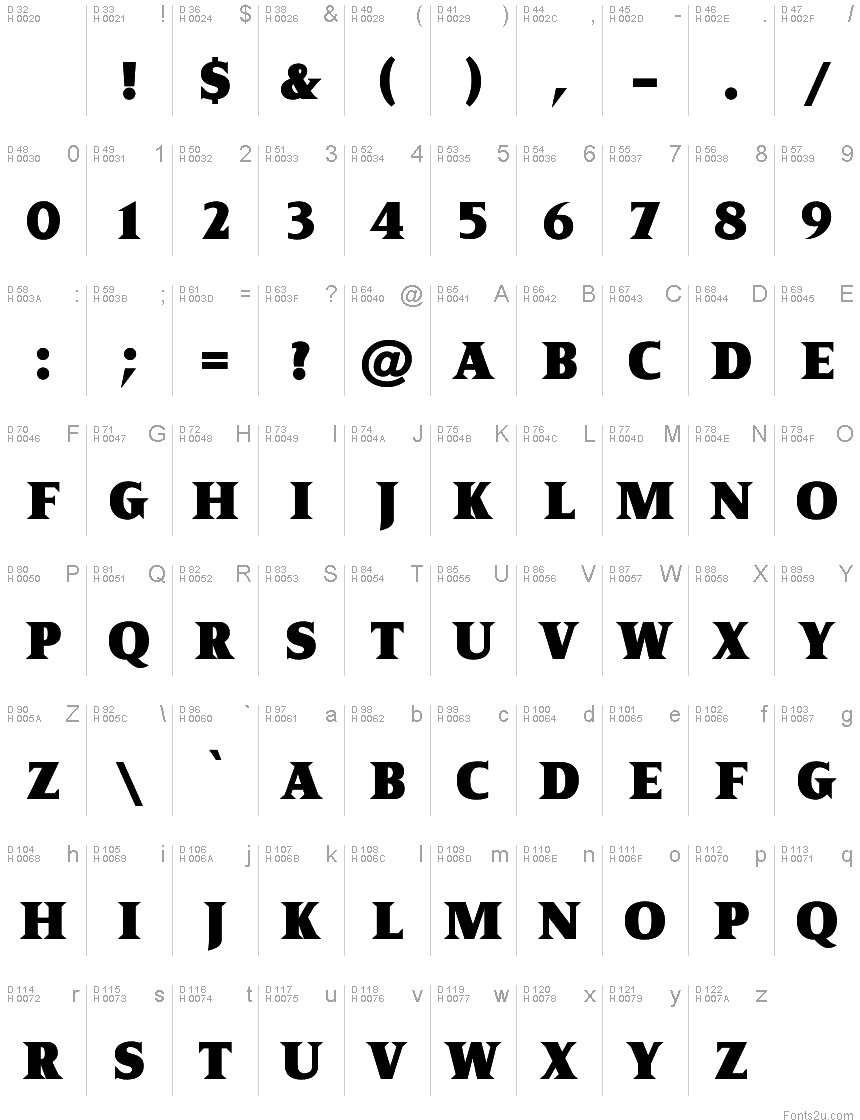
King of Rome Regular
King of Rome is a bold and sharp typeface. Less insane than AZLatin Wide. For logos, menus or just about anything where you think it fits.
King of Rome Regular is a font designed by HENRIavecunK in 2016.